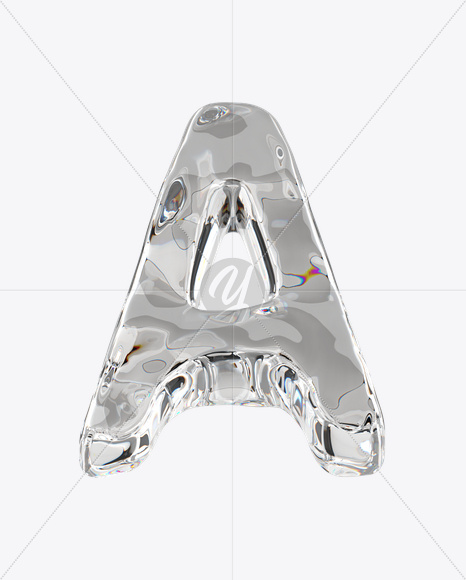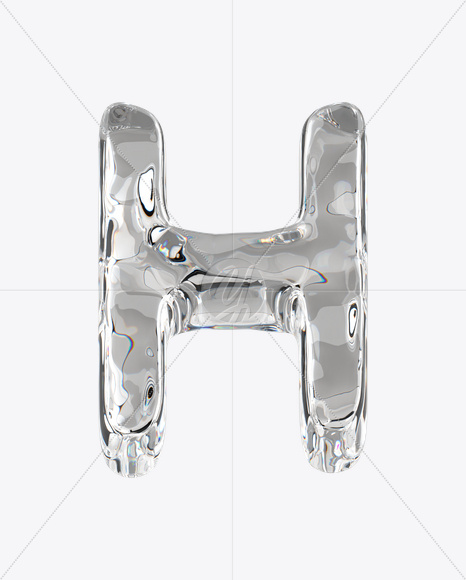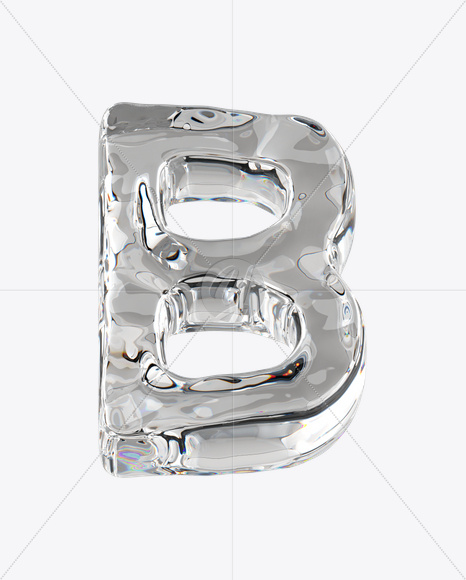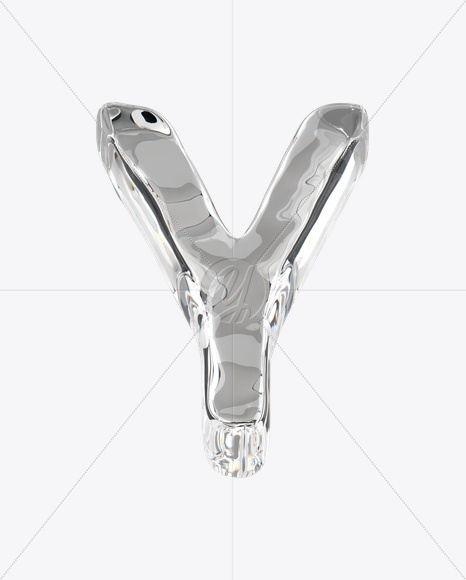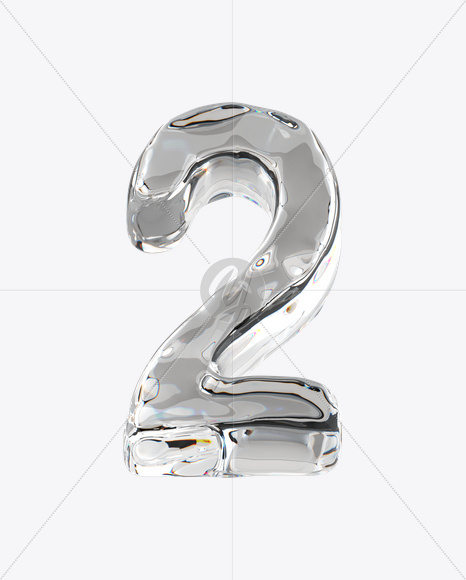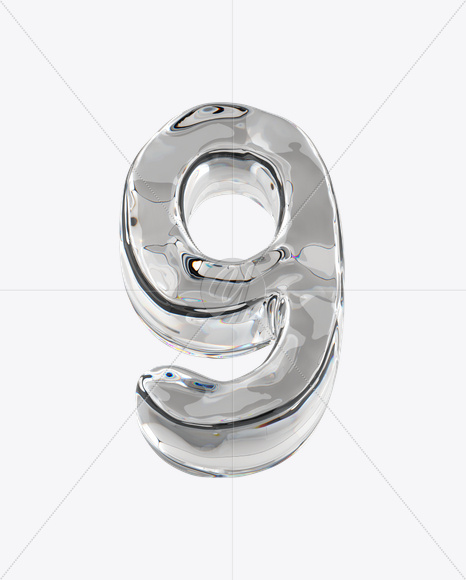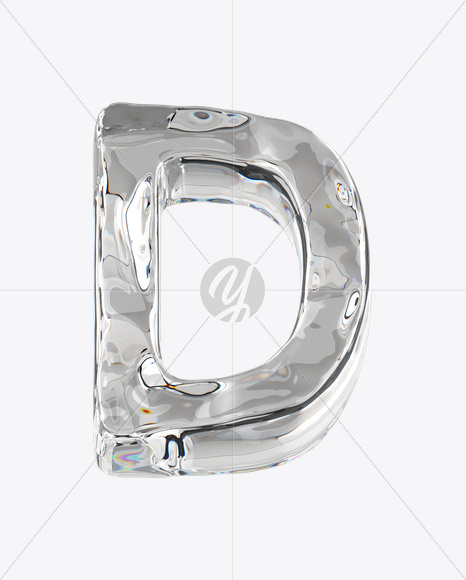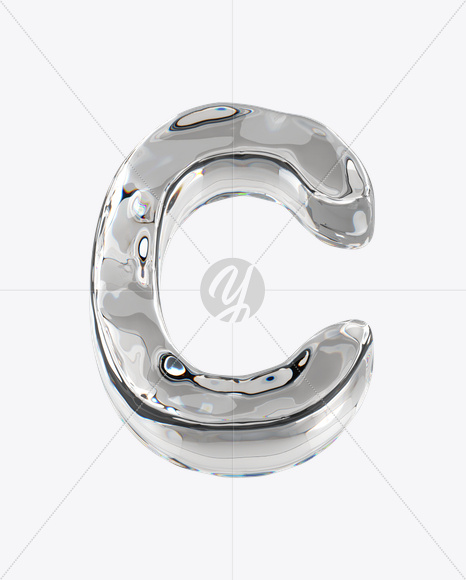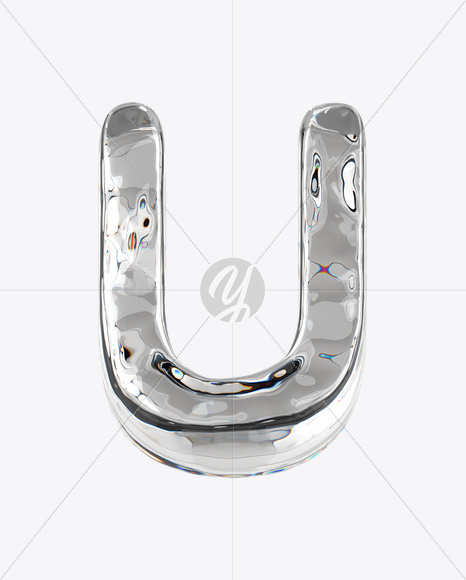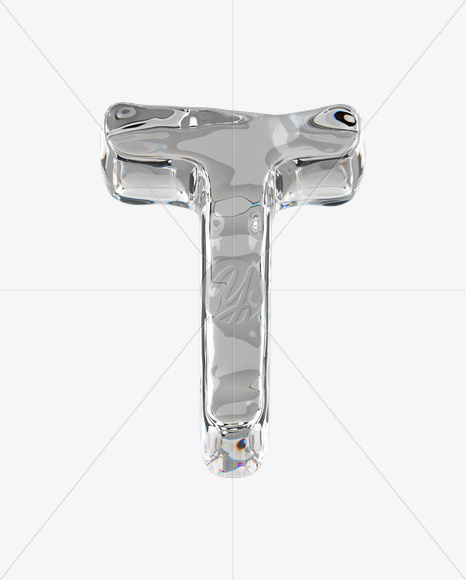
Handmadefont likes when everything goes smoothly. No nerves and hesitations. We produced Smooth Ice Font to calm your stew and make it just smooth. Smooth Ice Font doesn’t compromise, allowing letters to be settled into their natural width, which makes it equipped for all kind of typographic challenges. This stylish geometric typeface is a creative font which is easy to read.